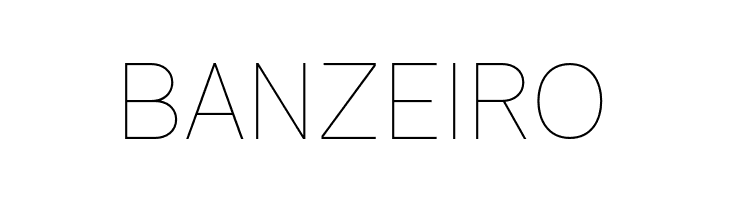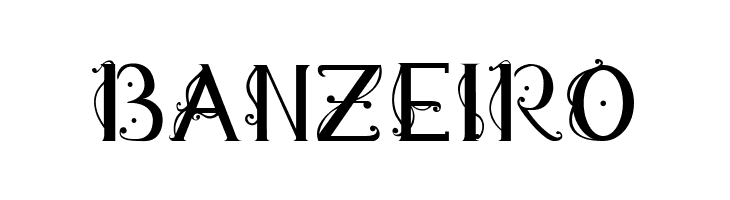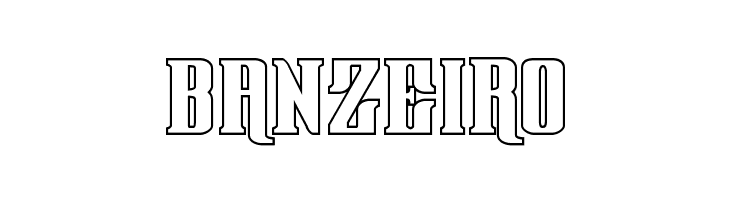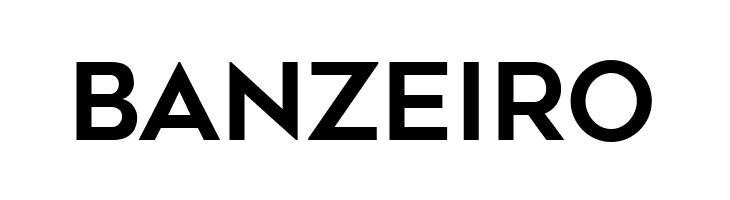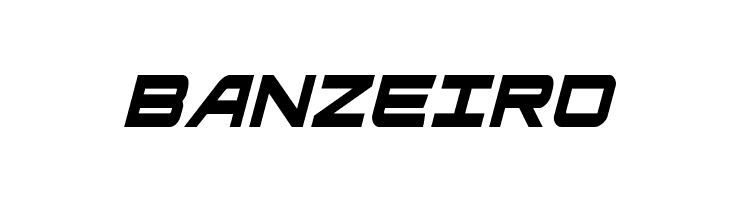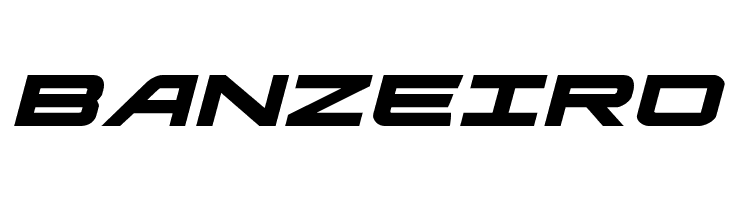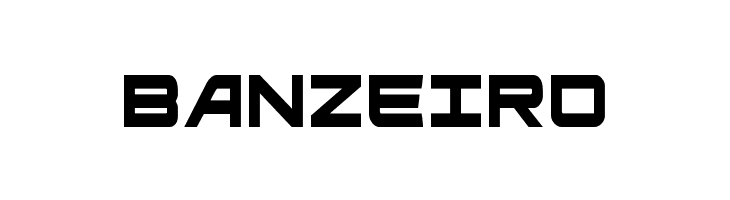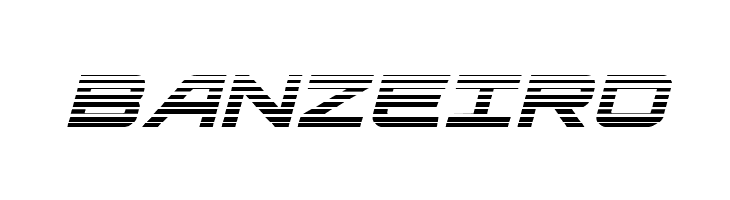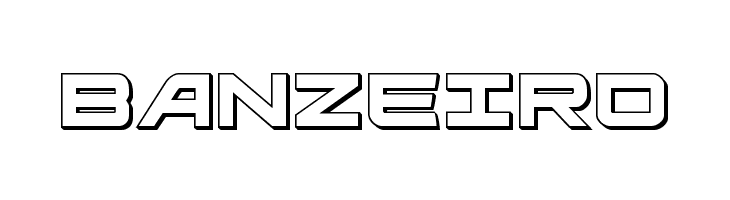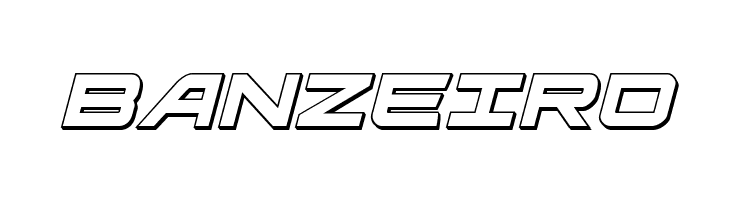
Bold, italicized font with a three-dimensional outline effect.
A bold, outlined font with a modern, geometric style.
A bold, distressed font with a vintage, rugged appearance.
Bold, italicized font with a distressed, textured style.
A bold, italicized font with a double-outline effect, perfect for modern and dynamic designs.
A bold, outlined geometric font with a modern and structured appearance.
A thin, modern sans-serif font with a clean and minimalistic design.
A decorative font with intricate swirls and embellishments.
A bold, vintage-inspired serif font with strong, angular serifs and thick strokes.
A bold, 3D effect font with strong, blocky uppercase letters and high contrast.
A bold, 3D italic font with a modern and dynamic style.
A bold, condensed font with strong vertical strokes and minimal contrast.
A bold, condensed, and italic font with a modern and dynamic style.
A bold, expanded slab serif font with a vintage yet modern appeal.
A bold, expanded, and italicized font with a vintage yet modern appeal.
A bold, italic font with angular edges and a dynamic style.
A bold, left-leaning font with a dynamic and impactful style.
A bold, outlined serif font with a classic and decorative style.
A bold, outlined, italic font with a dynamic and energetic style.
A bold, italicized font with sharp, angular lines and high contrast.
A bold, vintage-style font with strong, blocky characters.
A modern, geometric font with rounded edges and consistent stroke widths.
A modern, geometric sans-serif font with rounded edges and uniform stroke width.
A sleek, geometric font with thin lines and a modern, minimalist style.
A modern, rounded font with a geometric structure and friendly appearance.
A lively, expressive script font with a handwritten feel and fluid connections.
A lively, cursive script font with flowing, decorative letterforms.
A bold, 3D italic font with a futuristic and geometric style.
A bold, futuristic font with a 3D effect and geometric design.
A bold, futuristic, and condensed font ideal for modern branding.
A dynamic, condensed italic font with a modern, sporty look.
A bold, futuristic font with sharp, angular edges and a geometric style.
A bold, expanded italic font with a modern, dynamic style.
A futuristic, italicized font with a gradient effect created by horizontal lines.